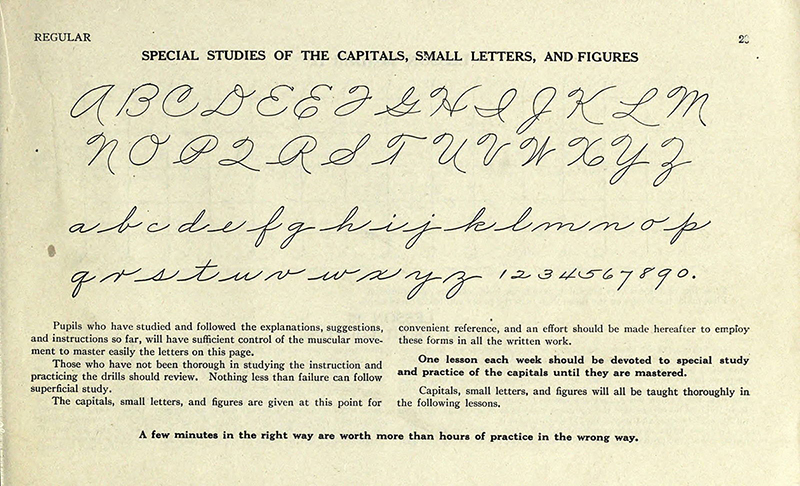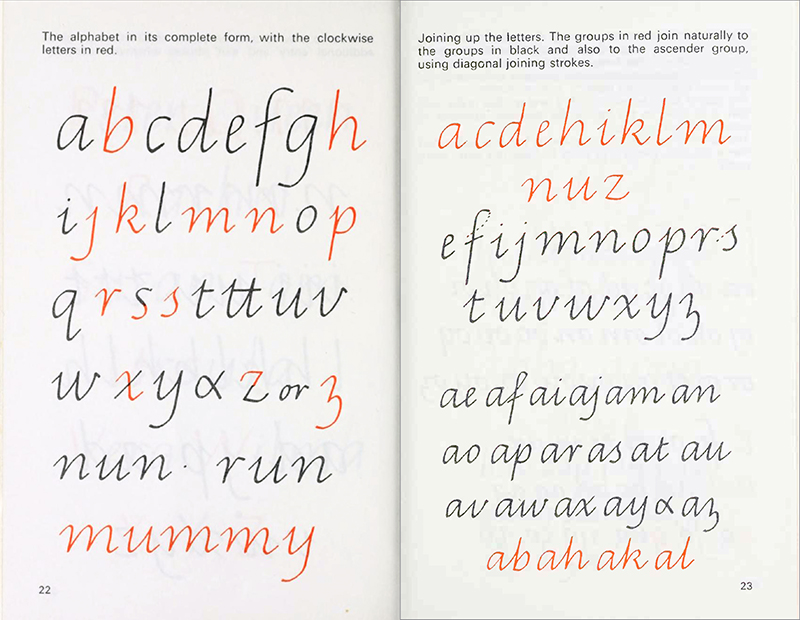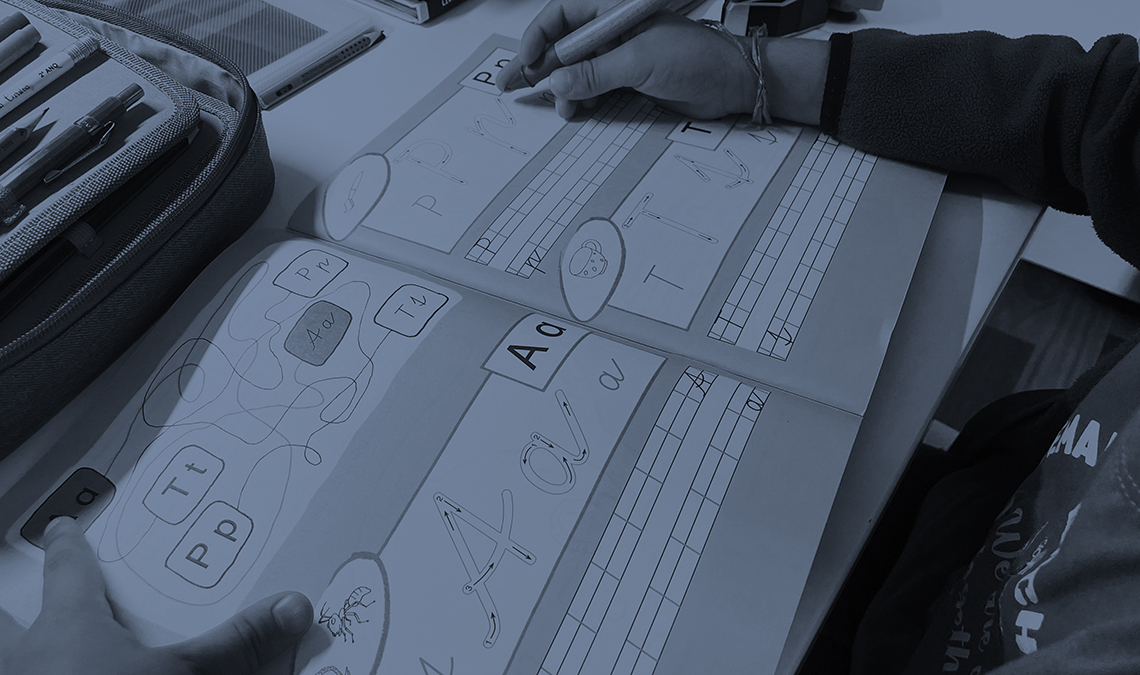
New research: primary handwriting education
We are thrilled to announce our latest groundbreaking research project — an in-depth examination of how handwriting is taught today in regions around the world that use the Latin script. We started at the beginning of 2022 and we are excited to share some fascinating, early insights. And don’t forget, we need your help making this a success!
In the debate between digital and analogue, and doomsday predictions about the death of cursive handwriting, the one essential factor often missing is a true picture of what handwriting education for today’s children looks like — a view not just from one country or region, but from across the world. And so in early 2022, a research team at TypeTogether set out to fill this gap.
We are studying the state of handwriting education in primary schools in over 40 countries that use the Latin script, and our unprecedented research will culminate in a free, first-of-its-kind, and publicly-available resource about handwriting education that will serve the educational and typographic communities alike.
A global perspective
Our goal is an ambitious one: we plan to study how handwriting in the Latin script is taught to primary school children in about a quarter of the countries of the world, spanning six continents. For each country, we are looking for answers to a set of interconnected questions: how does handwriting fit into educational goals and primary school curricula? When do students learn how to write? What styles of handwriting do they learn? And what models and methods are used to teach them? In academic circles, we are doing what is called primary research, meaning this is a first of its kind. And while historical background is important to us, our focus is clearly on the nature of handwriting education today.
With that as our foundation, we’re identifying the main approaches to handwriting education in every country and the specific models from which students are most likely to learn. We have already identified and carefully catalogued dozens of models developed by a variety of stakeholders, like government bodies, handwriting experts, teachers and schools, publishers, calligraphers, and designers.
Our multilingual team spread across the Americas, Europe, and Asia has been an enviable asset as we have embarked on this global study.
Interdisciplinary and collaborative research
Very early while conceptualising this project, we realised the importance of seeing the issue of handwriting education in primary schools from diverse viewpoints. We didn’t want to be limited by what may come easily to us as visual designers, but instead cast our nets widely and learn from a range of sources and fields.
As a result, our research has taken us from poring over legislative documents to investigating historical threads; examining curricula and syllabi to surveying teaching materials; reading academic publications to reviewing marketing information from educational publishers; and examining typefaces as well as lettered samples. All of this desk research has been complemented by interviews with teachers, parents, educationists, administrators, and designers who have helped us contextualise our learnings with their real-world experiences.
Early insights
At a little over six months in, our research and analysis are far from complete, but important and thought-provoking insights are already becoming apparent.
For starters, the very notion of what constitutes primary school cursive writing varies dramatically. It could be vertical or slanted, fully joined or semi-joined, uppercase letters can be ornate and decorative or simply borrowed from print styles, lowercase letters can be based on round or oval foundational shapes, and the proportion of the x-height vis-a-vis the ascenders and descenders can differ. Even terms to describe the same type of handwriting diverge, and some of them were surprising to us given our type design-focused vocabularies. Unconnected print style letters, for example, are known as “manuscript” in many countries, including the Philippines and Ireland.
Cursive handwriting in primary school education around the world takes many forms, and that is evident in the typefaces used in teaching materials. Here are some examples: Briem Script by Gunnlaugur S.E. Briem and Freyja Bergsveinsdóttir used in textbooks in Iceland; Cursive Dumont Elementaire by Danièle Dumont, popular in France; Schulschrift SAS by Just van Rossum used in the eastern parts of Germany; Twinkl by TypeTogether, used in textbooks by the eponymous publisher in England and other parts of the world; and Learning Curve by Jess Latham, which is used in Colombia.
The ins and outs of teaching
The logistics of how handwriting is taught also offers a study in contrast. Take, for instance, the age at which children are expected to write in fluent handwriting according to national curricular requirements. It is 7–8 years old in New Zealand, but 12–13 years in neighbouring Australia — a difference of half a decade!
Similarly, the degree to which national governments are involved in preparing and recommending handwriting models changes from country to country. As recently as 2013, the French Ministry of Education introduced new models of handwriting called Modèles d'Écriture Scolaire A et B to reform handwriting teaching. Compare that to the United States, where models developed and marketed by private companies, such as Zaner-Bloser and Getty-Dubay Italic, rule the roost.